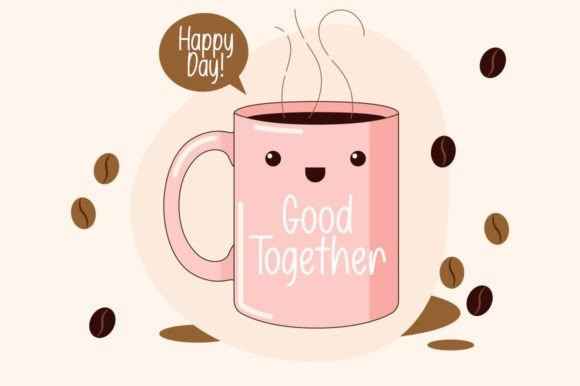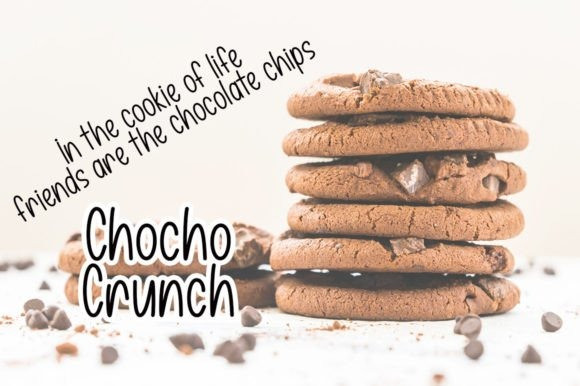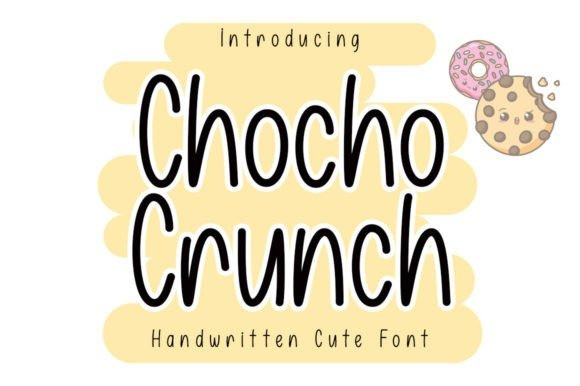
Chocho Crunch Font
Chocho Crunch Font is a fun and quirky handwritten font. It can easily be matched to an incredibly large set of projects, so add it to your creative ideas and notice how it makes them stand out!